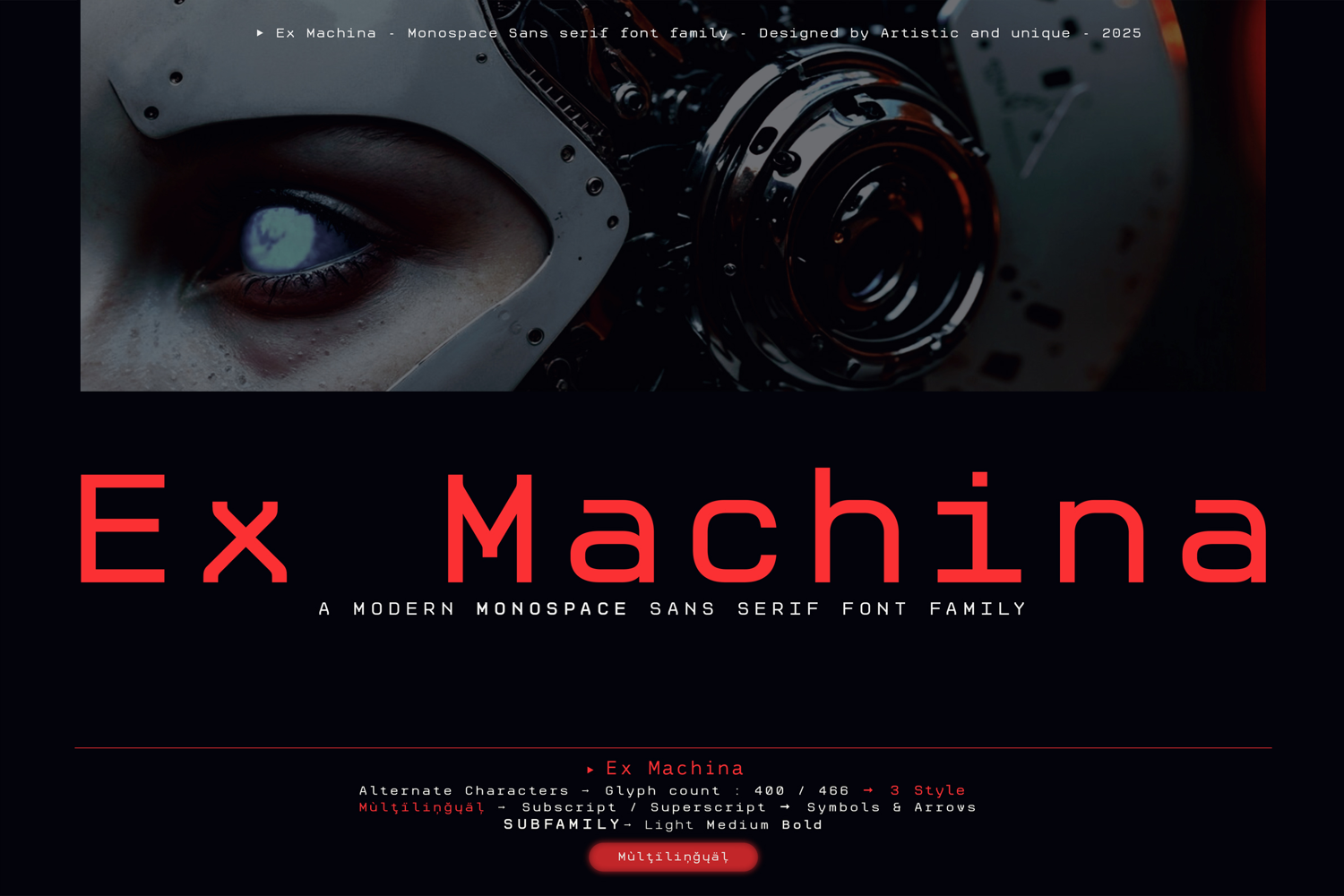
Ex Machina - Monospace Sans serif font family - Multilingual support - 3 styles.
Ex Machina - A functional and contemporary font designed for technology-focused applications, offering a futuristic approach to modern, monospaced fonts. Inspired by the visual, mechanical, and industrial heritage of the tech world, Ex Machina not only boasts visual appeal but also the high readability that distinguishes monospaced fonts.
These features aim to enhance the user experience in technological environments. Its futuristic design and functionality make it perfect for technology-related works. Ex Machina's multilingual structure and usability meet the sought-after characteristics of futuristic and contemporary design approaches and pursuits, while its timeless, clear, and clean structure make it an ideal solution for your projects.
Equal spacing across all characters ensures high readability and alignment, making Ex Machina an ideal choice for user interfaces, coding, tabular data, and technical documentation.
This font family is also well-suited for screen-based programming environments, editorial layouts, or any branding project requiring minimalist design. By using light colors for body text, bold accents, and various symbols, it offers flexibility for both functional and impactful applications.
Your font choice is a key element that can enhance the dynamism and spirit of your project. Nuances and distinctive features can make your projects stand out by effectively utilizing these features.
- Allows you to change the weight of a word without losing text alignment.
- Provides excellent performance at normal-width text sizes and page display sizes with design details optimized for readability.
- Ideal for coding, user interfaces, and digital displays, this font is also perfect for contemporary branding, web design, packaging, technology design, and countless other projects.
- 466 glyphs and multilingual support. - Alternate Characters, Uppercase/Lowercase Letters, Glyph Composition/Separation, Arrows, Subscripts, Superscripts, Symbols.